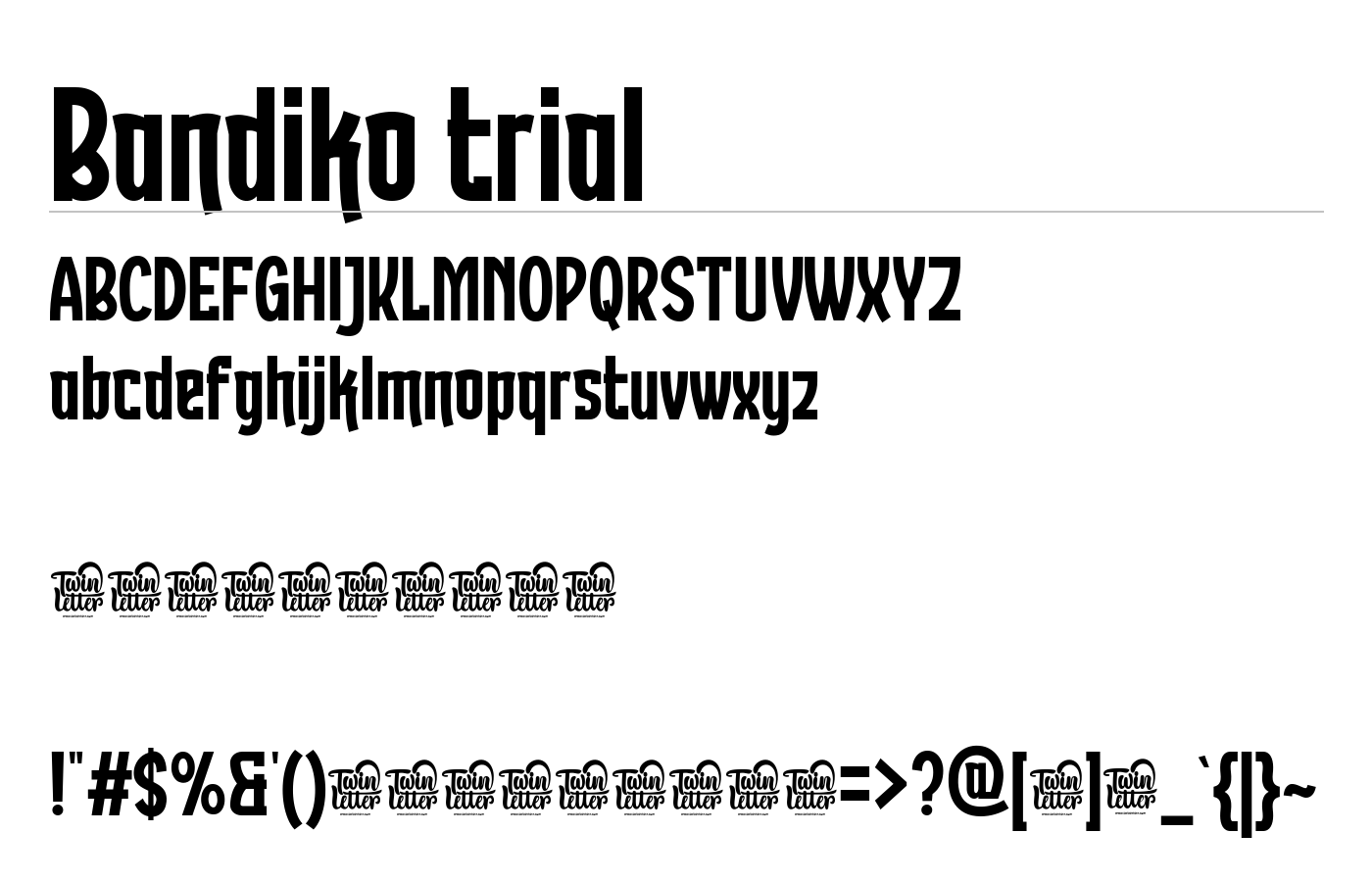
Bandiko trial is a bold, narrow sans serif font with a unique, slightly irregular character style that gives it a quirky and modern feel. Its tall x-height and tight letter spacing make it attention-grabbing and ideal for headlines or branding that wants to stand out with a playful yet strong personality. This font works well in creative projects where a distinct, contemporary look is desired.
Bandiko trial Font